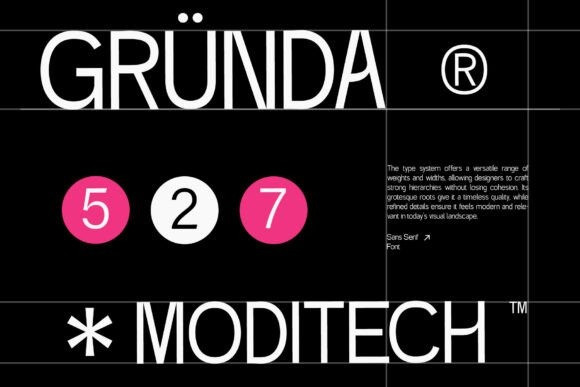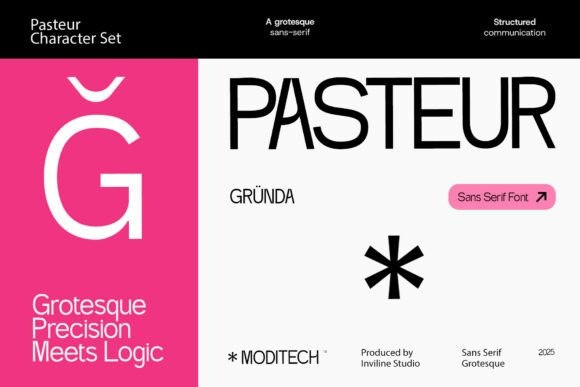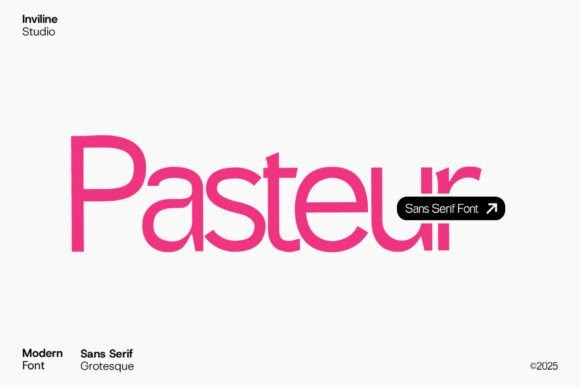
Pasteur Font
Pasteur Font is a modern grotesk sans serif typeface crafted for structured communication and sharp clarity. Designed by Inviline Studio, Pasteur blends geometric precision with a logical structure, making it perfect for branding, editorial, UI design, and signage. With clean curves and consistent proportions, this font excels in legibility and contemporary style. Featuring uppercase, lowercase, multilingual support, and a full set of numerals and symbols, Pasteur delivers versatility for both digital and print use. Its bold aesthetic adds a sense of modern sophistication to every project.